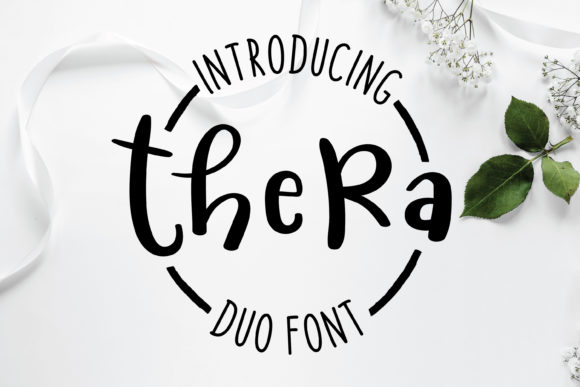
Introducing Thera Font: The Quintessential Script Font for Landscape Design Enthusiasts
In the realm of landscape design, where beauty and precision intertwine, Thera Font emerges as the ultimate script font, an artistic masterpiece that will elevate your creations to new heights. Crafted by the visionary designers at Pila Studio, Thera embodies elegance and fluidity, perfectly capturing the essence of nature's intricate details.
Thera's captivating curves and delicate strokes evoke a sense of harmony, perfectly complementing the organic forms found in landscape design. This font is not merely a tool; it is an extension of your creative vision, seamlessly blending with the natural elements to create breathtaking designs.
With Thera Font as your creative companion, you'll find yourself immersed in a world of endless possibilities. Whether you're designing serene gardens, enchanting walkways, or sprawling landscapes, Thera's versatility knows no bounds. It effortlessly adapts to your unique style, whether it's classic and timeless or modern and minimalist.
Thera's distinct and timeless style is an ode to the enduring beauty of nature. Its meticulously crafted characters dance across the page, capturing the essence of flowing water, swaying branches, and blooming flowers. With Thera as your chosen font, your landscape designs will transcend the ordinary, becoming living works of art that speak to the soul.
Experience the magic of Thera Font today and unlock the full potential of your landscape designs. Let its graceful lines guide you as you create breathtaking outdoor spaces that inspire and rejuvenate. Thera is more than just a font; it's an invitation to immerse yourself in the beauty of nature, to transform your surroundings into a harmonious symphony of form and function.